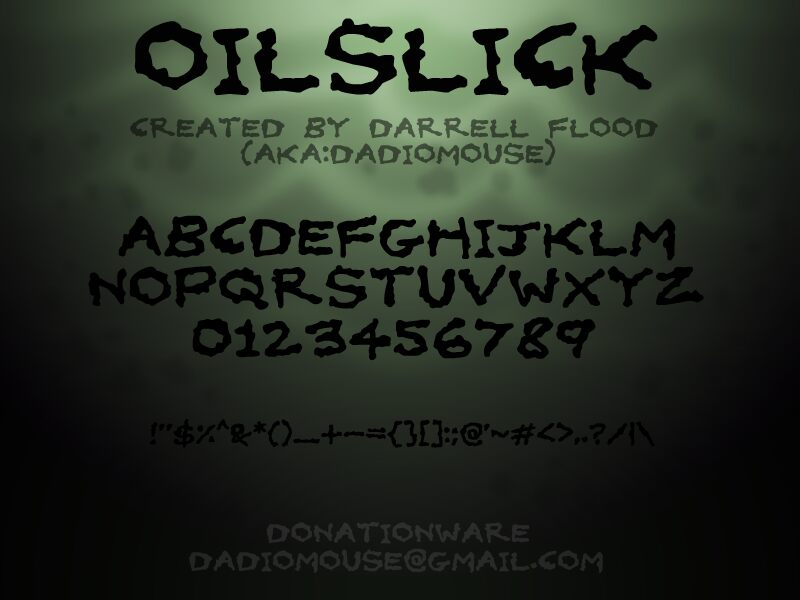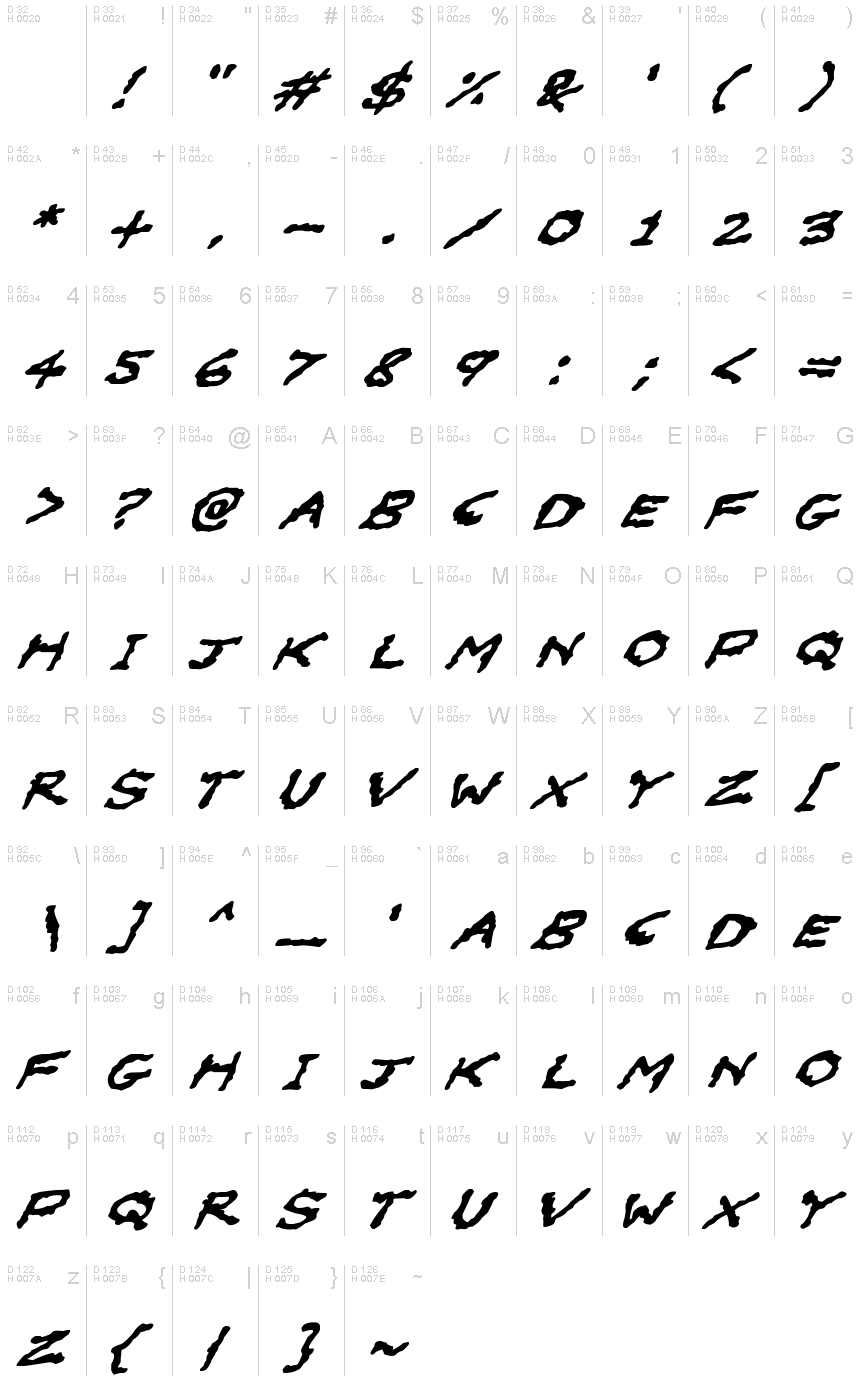
Oilslick Italic
Oilslick is a captivating display font that exudes a sense of raw, unbridled energy. Its distorted, gritty aesthetic channels the unpredictable nature of oil, with each letter possessing a dynamic, flowing quality that commands attention. Designed by Darrell Flood, this italic font masterfully blends legibility with a striking, unconventional visual style. The Oilslick font thrives in bold, impactful applications, such as headlines, logos, and branding materials, where its unique character can truly shine.
Its versatility allows it to seamlessly transition between modern, edgy designs and more industrial, grungy aesthetics, making it a valuable asset for designers seeking to make a lasting impression.